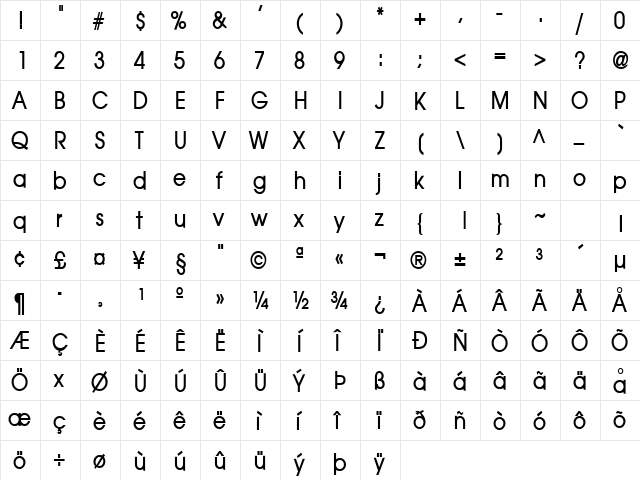
Atilla-Condensed Bold Font Preview
Design Context for Atilla-Condensed Typeface
Atilla-Condensed takes a measured approach to typography — its balanced proportions and neutral character make it a reliable workhorse for both digital and print work. The heavy weight commands attention and anchors typographic hierarchies. Its narrow stance lets it pack a punch even in space-constrained designs.